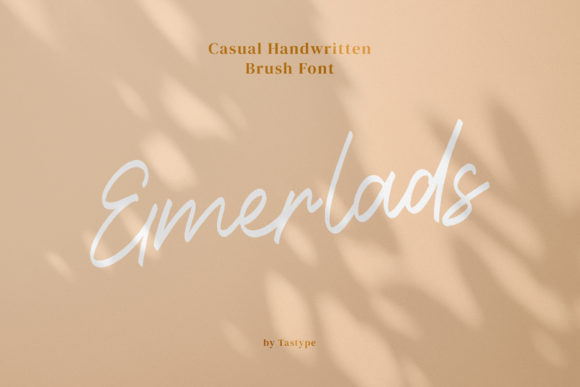
Emerlads Font: Elegant Script Handwritten Type for Crafters
As a small business owner and printable creator, finding the right typography can make or break a product line, which is why Emerlads stands out as a flowing handwritten font described by an elegant touch perfect for your favorite projects. When you are designing physical goods or digital downloads, the typeface you choose communicates quality before the customer even reads the words. This specific script handwritten style offers that distinct, timeless aesthetic that buyers associate with premium handmade items. Whether you are cutting vinyl for a wedding sign or laying out a digital planner, having a reliable, beautiful font in your arsenal is essential for maintaining a cohesive brand identity across all your creative outputs.
Using Emerlads for Wedding Stationery and Elegant Invitations
When designing for the lucrative wedding market, Emerlads and other refined fonts serve as the cornerstone of sophisticated stationery suites that clients adore. Brides are constantly searching for invitation designs that feel personal yet polished, and this typeface delivers exactly that balance of romance and readability. The flowing nature of the letterforms mimics high-end calligraphy without the unpredictable spacing issues that sometimes plague genuine hand-lettering digitization. For crafters using Cricut or Silhouette machines to create acrylic welcome signs or table numbers, the connected strokes of this script handwritten font cut cleanly, reducing weeding time and material waste.
Beyond just invitations, this font excels on place cards, menu headers, and favor tags where legibility at smaller sizes is crucial. Many display fonts lose their charm when scaled down, but the distinct structure here maintains its integrity. If you are selling editable Canva templates or Corjl files for DIY brides, including this typeface adds significant perceived value to your digital products. It pairs beautifully with a minimalist sans serif font for venue details, allowing the names and titles to take center stage while ensuring guests can easily read the logistical information. This versatility makes it a staple asset for any stationery designer looking to elevate their wedding portfolio.
Elevating Product Packaging and Handmade Labels with Emerlads
For sellers of physical goods like candles, soaps, and boutique clothing, Emerlads provides the commercial utility needed for professional packaging design and product labeling. A generic computer font can make a handmade item look mass-produced, whereas this elegant touch signals to the buyer that care and artistry went into the creation. When designing labels for glass jars or textured paper bags, the organic flow of the letters complements natural materials and rustic aesthetics perfectly. I have found that using this specific script handwritten style on candle lids or soap belly bands instantly increases the perceived value of the product, justifying a higher price point in a crowded marketplace.
Readability is paramount in packaging, especially for compliance and branding recognition. While some ornate fonts sacrifice clarity for style, this typeface remains accessible even on curved surfaces or small sticker formats. It works exceptionally well for short phrases like "Hand Poured," "Small Batch," or signature product names. For those creating SVG cut files to sell to other crafters, designs featuring this font tend to perform well because they bridge the gap between decorative and functional. Just ensure you test print sizes on your specific label stock; while the font is robust, extremely thin connectors may need slight bolding for inkjet printing on porous kraft paper to prevent fading.
Creating Best-Selling Digital Printables and Wall Art
Digital download creators will find that Emerlads and versatile script handwritten fonts are key drivers for sales in the printable wall art and planner niches. The demand for "timeless style" in home decor means customers are moving away from trendy, messy scripts toward cleaner, more classic typography that won't look dated in six months. When designing affirmation prints, nursery quotes, or kitchen conversion charts, this font provides the emotional warmth required for home environments while maintaining the clean lines necessary for high-resolution printing. Its distinct personality allows it to stand alone as a typographic art piece without needing excessive floral illustrations or background elements.
For planner and journal creators, this typeface shines in monthly headers, section dividers, and sticker sheets. The consistency of the baseline and x-height makes it easier to align with grid systems compared to more erratic handwriting styles. If you offer customizable templates, this font is user-friendly for customers who may not be design experts; it looks professional automatically when they type their own text. When listing these digital products, highlight the font’s elegance in your mockups to attract buyers looking for sophisticated organization tools. Remember that in the digital space, your font choice is often the primary differentiator between your listing and thousands of others, so leveraging this distinct style can directly impact click-through rates.
Font Pairing Strategies for Commercial Craft Projects
To maximize the impact of Emerlads in your designs, understanding how to pair it with complementary fonts is essential for creating balanced, commercially viable layouts. As a general rule for script handwritten typefaces, contrast is your best friend; avoid pairing this flowing font with another script, as the competing flourishes will create visual clutter and reduce readability. Instead, anchor the elegance of this typeface with a sturdy geometric sans serif or a classic serif font for body text. For example, on a bakery logo, use this font for the business name to convey artisanal quality, but use a clean, bold sans serif for the tagline "Fresh Baked Daily" to ensure instant recognition from a distance.
In social media graphics and marketing materials, this pairing strategy helps guide the viewer's eye through the hierarchy of information. Use the expressive script for the hook or headline to grab attention emotionally, then switch to a simple typeface for the call-to-action or sale details. This combination not only looks professional but also improves accessibility for users scanning content quickly. For product photography overlays or Instagram stories, keeping the supporting text minimal allows the distinct character of the main font to breathe. Always test your pairings in black and white first to ensure the contrast holds up before adding color, ensuring your designs remain effective across various print and digital mediums.
From a technical standpoint, check if the font file includes OpenType features such as ligatures, alternates, or swashes, as these details significantly enhance the custom look of script handwritten designs. Accessing these glyphs allows you to avoid repetitive letter connections and add unique flourishes to the ends of words, making machine-cut vinyl look more like authentic hand-lettering. Ensure you have both OTF and TTF formats installed for maximum compatibility across design software like Illustrator, Photoshop, Cricut Design Space, and Silhouette Studio. Finally, confirm multilingual support if you serve international clients, as missing characters can ruin a custom order. By treating typography as a professional asset rather than just a decorative element, you build a sustainable, reputable brand that customers trust for their most important celebrations and purchases.